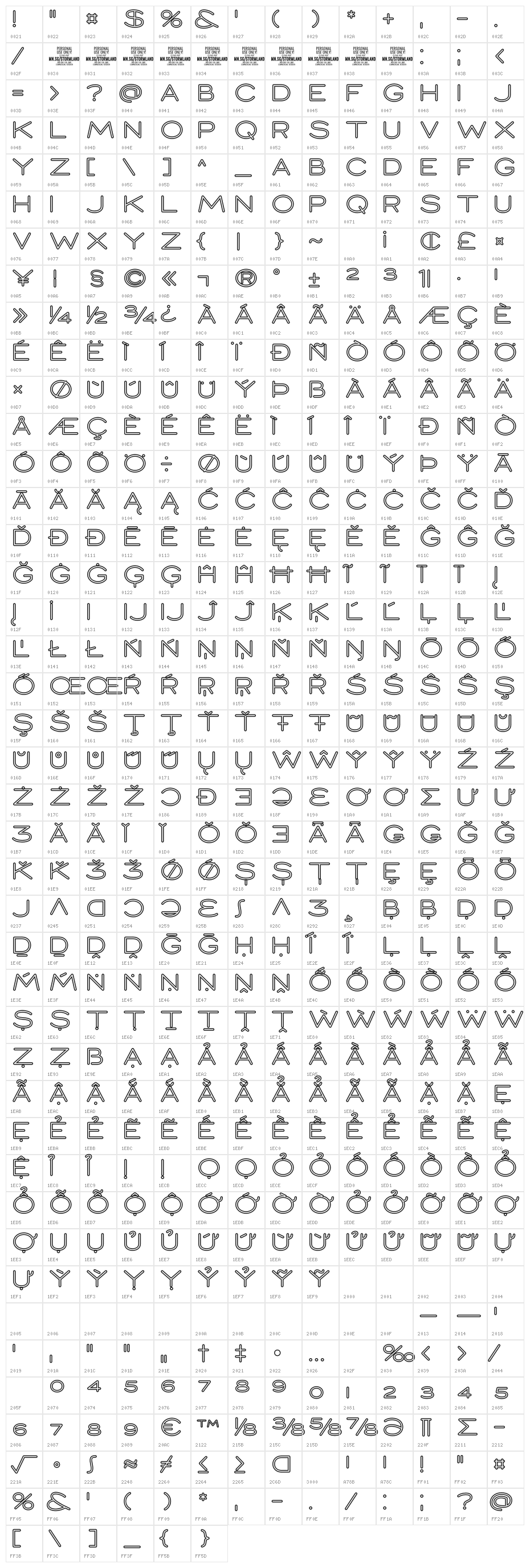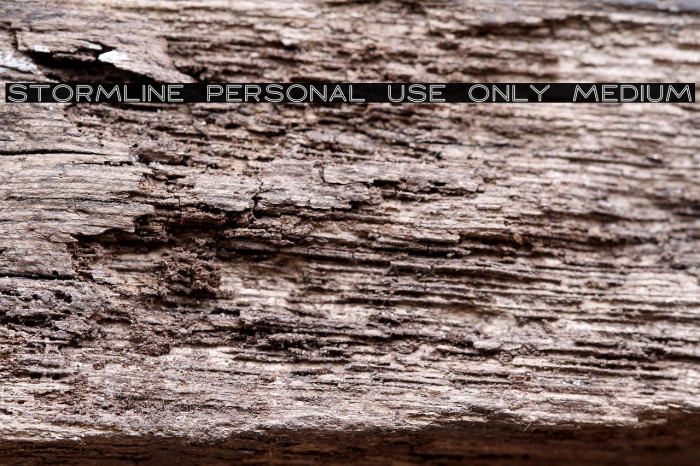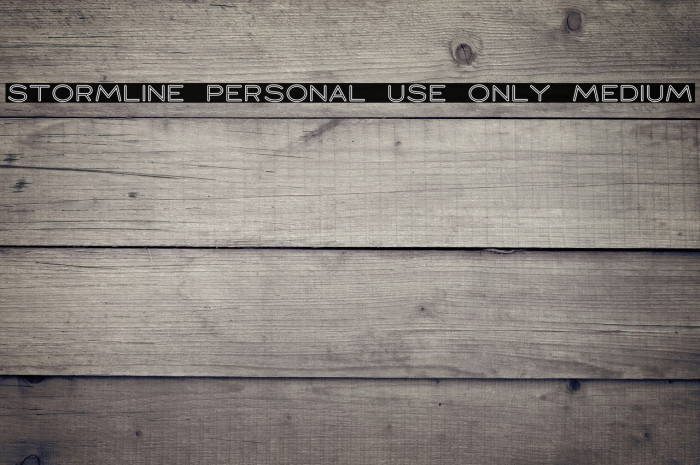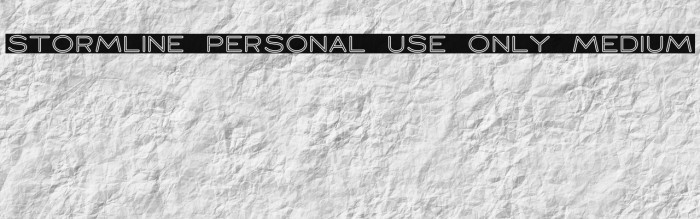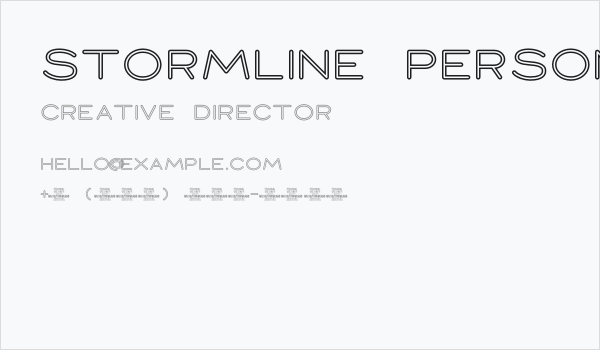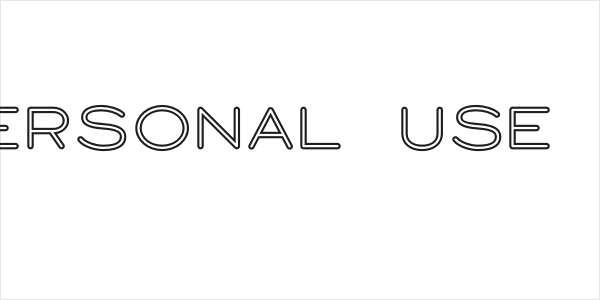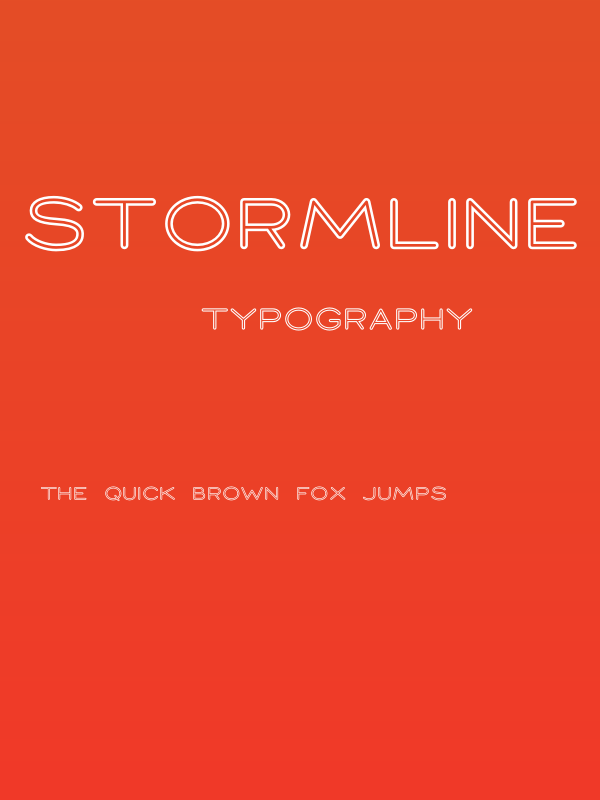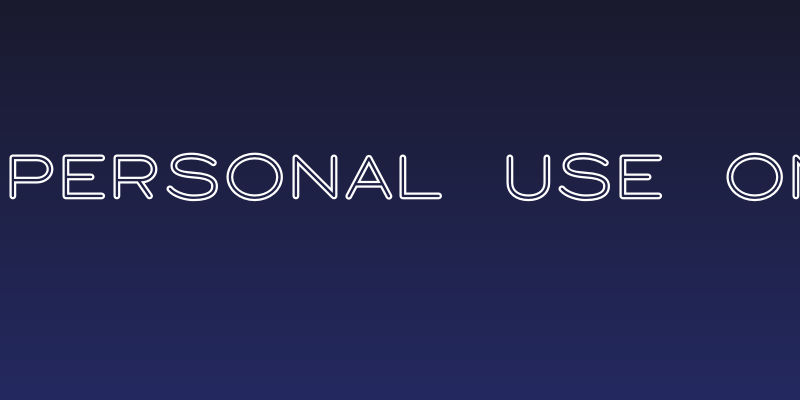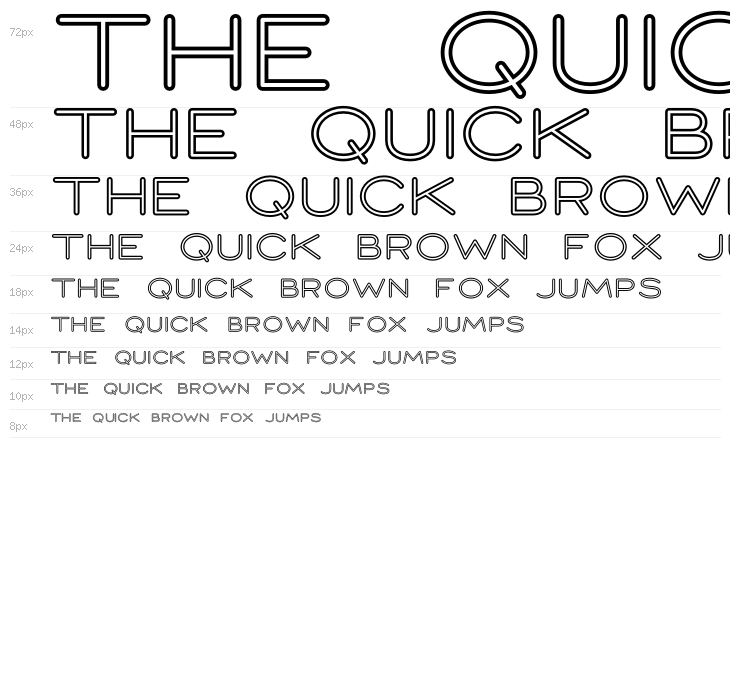
Stormline PERSONAL USE ONLY Medium Font
Stormline PERSONAL USE ONLY Medium Description
This font features a modern, geometric design with clean, open lines and a double-line structure that gives it a unique, futuristic appearance. The uppercase and lowercase letters maintain a consistent style, with rounded edges and uniform stroke widths that create a harmonious and balanced look. The numerals and special characters follow the same design principles, ensuring a cohesive visual identity across all elements. Its open and airy design makes it suitable for projects that require a contemporary and stylish feel.
| Proposed Projects | Ideal for branding, logos, posters, and digital media that require a contemporary and stylish aesthetic. |